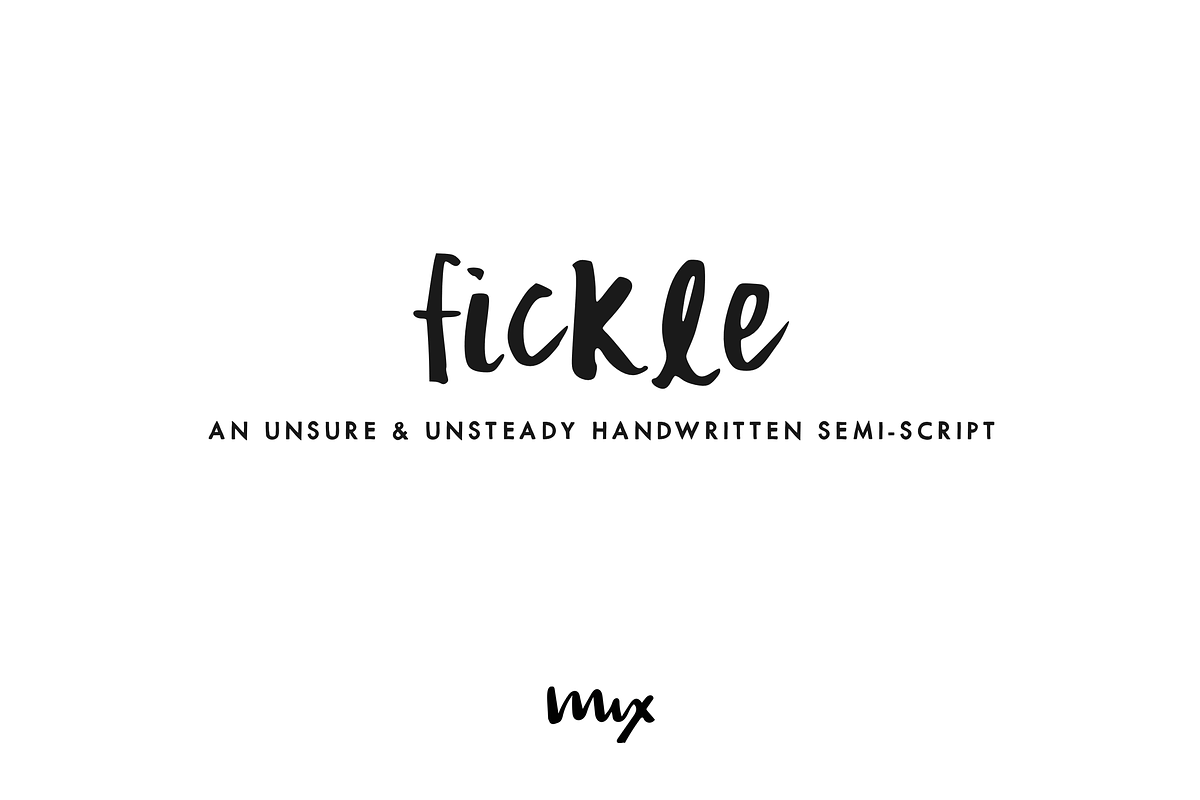
Fickle — A Handwritten Semi-Script Font Free Download is a playful and casual typeface that blends the charm of handwriting with the ease of a semi-script style. With its bouncy baseline, uneven strokes, and quirky letterforms, Fickle is perfect for greeting cards, planner pages, social media posts, children’s designs, and light-hearted branding.
It strikes the perfect balance between personal and professional—giving your text a relaxed, friendly vibe without sacrificing legibility. Whether you're creating a fun logo or a cheerful quote graphic, Fickle adds warmth and personality to your work.